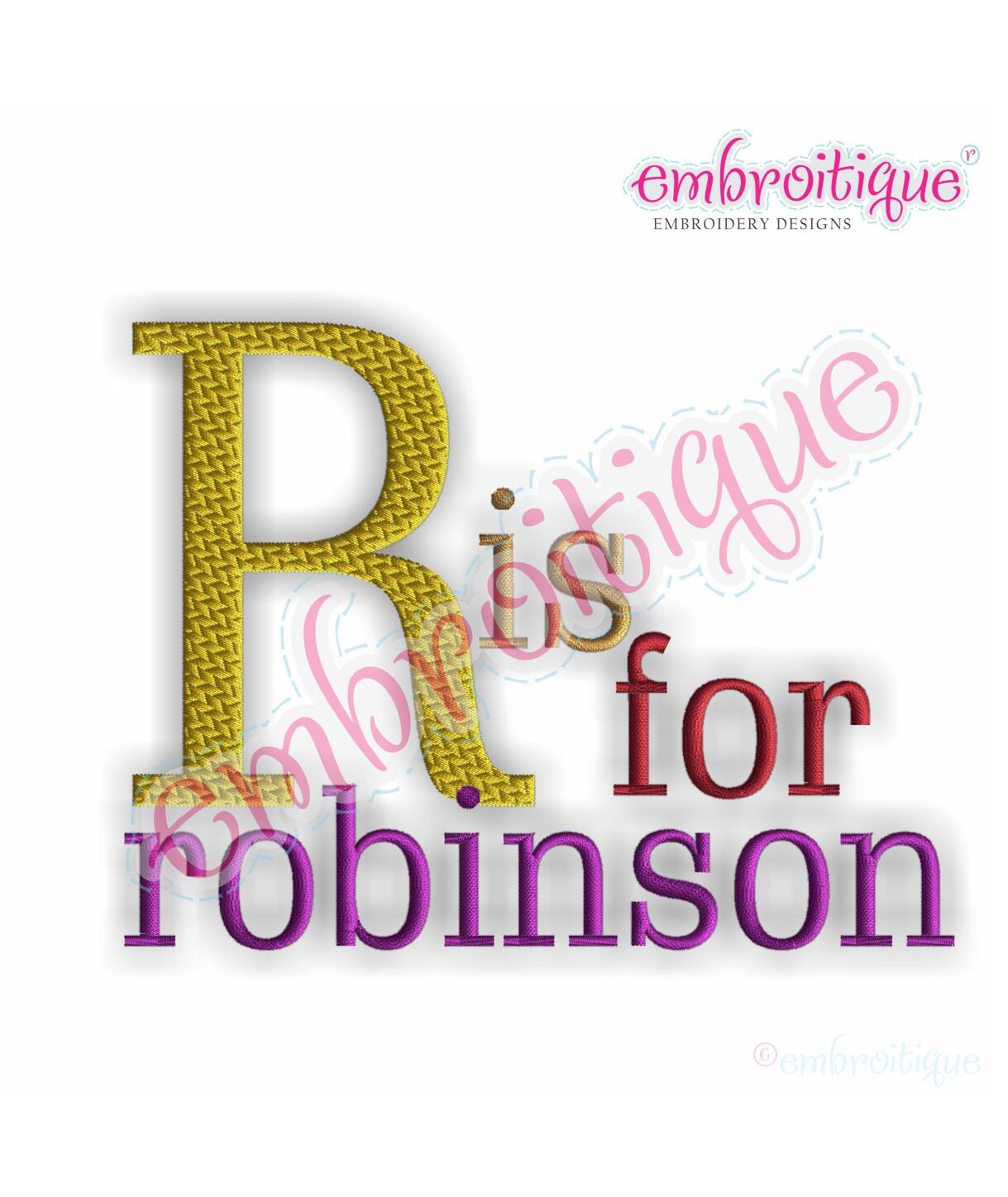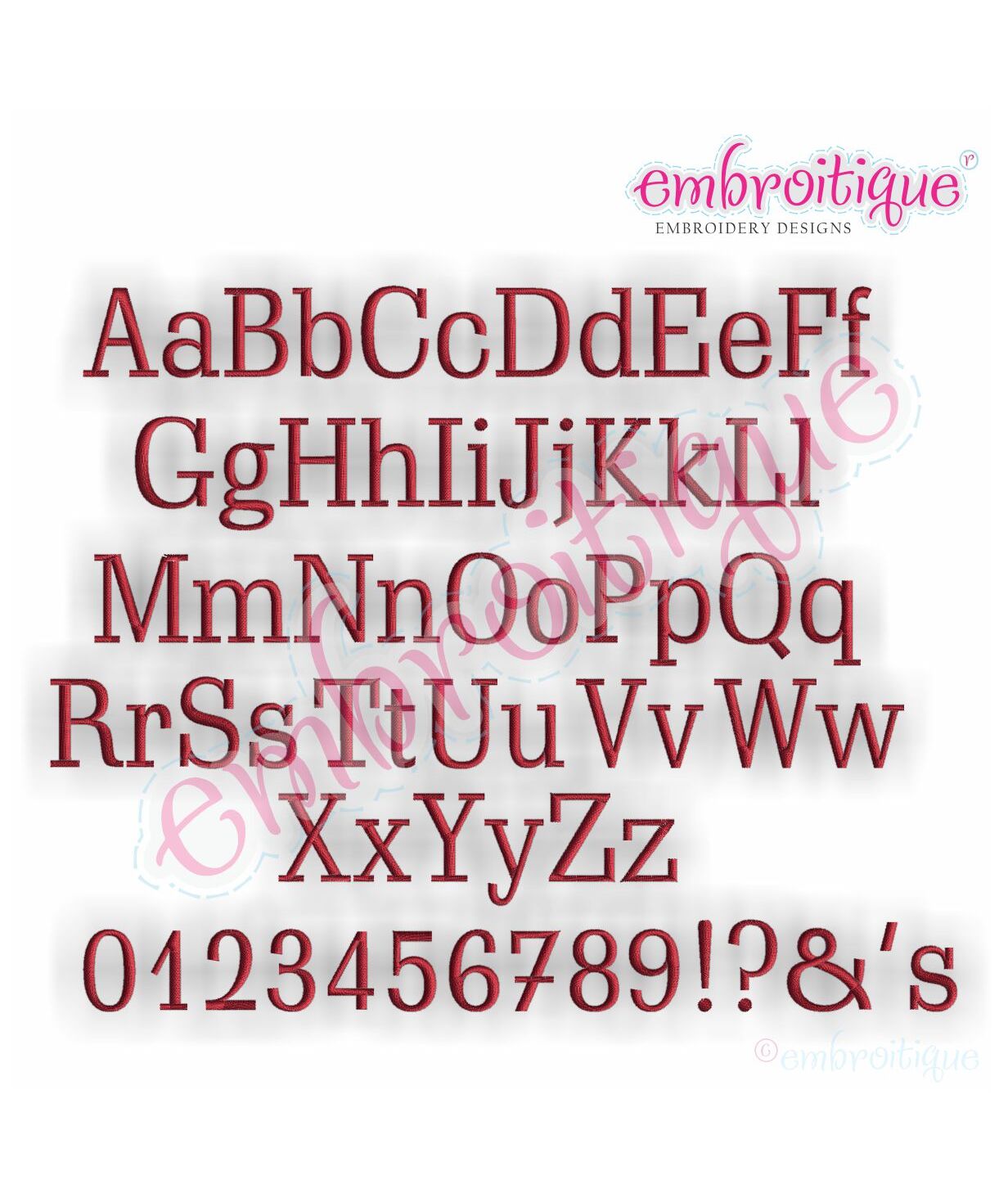
Robinson Monogram Font Set - Small
This set is great for boys, girls and adults!  Each letter is an individual file that you can use to build monograms, names and sayings.
.5", 1", 1.5", 2" - Satin or Wide Stitch - Uppercase A-Z, Lowercase a-z, Numbers 0-9,  and punctuation (?!.&'s)
2.5", 3" - Pattern Fill Stitch - Uppercase A-Z, Lowercase a-z, Numbers 0-9,  and punctuation (?!.&'s)